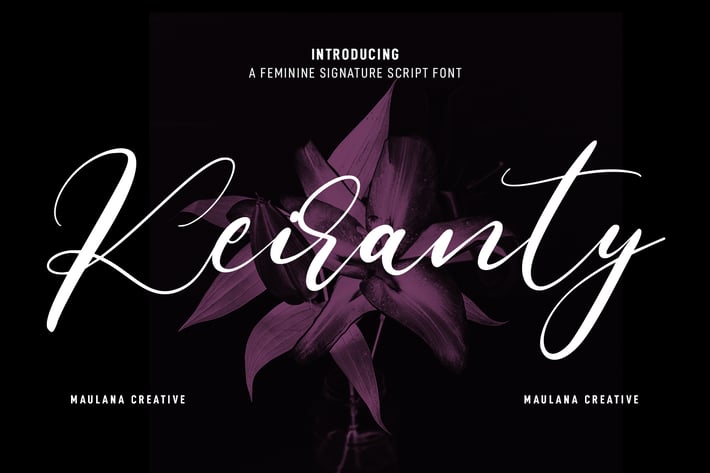
Keiranty Beauty Script Font
Keiranty is a fancy handwritten script font. With medium contrast stroke, fun character with a bit of ligatures and alternates. To give you an extra creative work. Keiranty font support multilingual more than 100+ language. This font is good for logo design, Social media, Movie Titles, Books Titles, a short text even a long text letter and good for your secondary text font with sans or serif. Make a stunning work with Keiranty font.